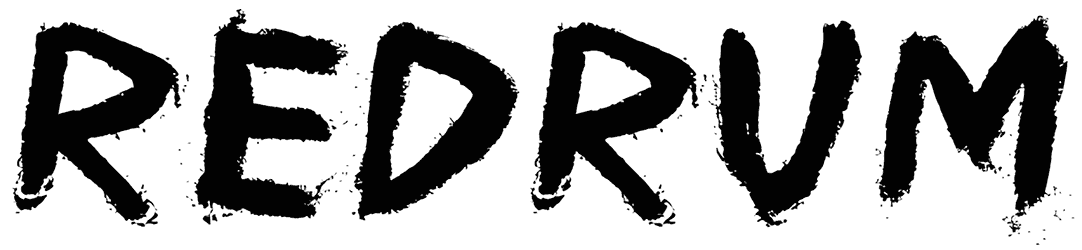
Redrum Font
Choosing Redrum for your horror theme designs is okay if you want to attract more customers. This horror font imitates human handwriting that wrote the text on the wall with fear and can create a spooky design for you.
So, if you plan a Halloween-themed advertisement or announcement or want to make your book covers and movie posters more attractive, you can use this fancy font to add more spice, even without lowercase letters.